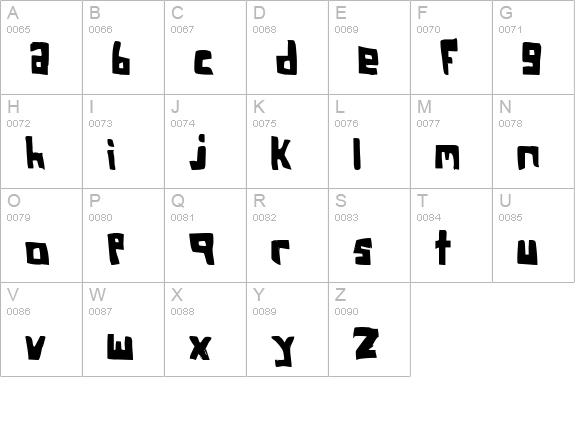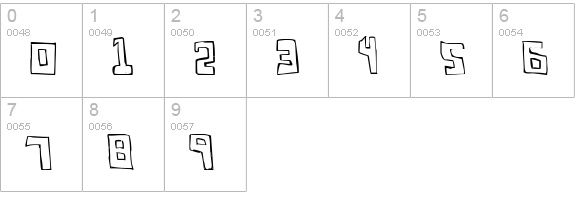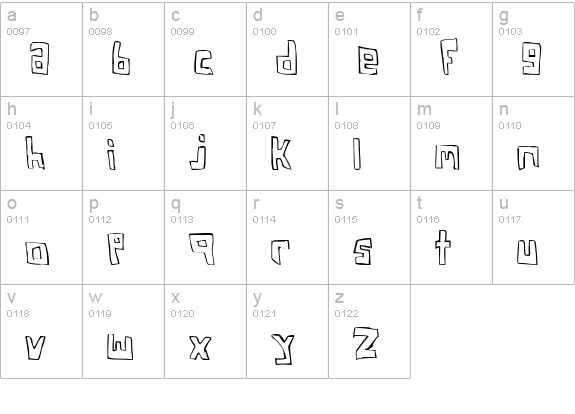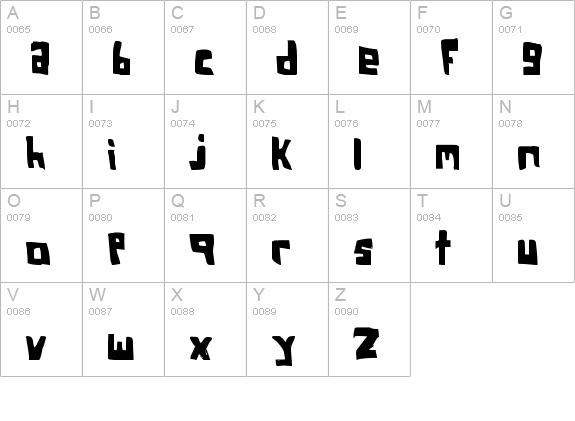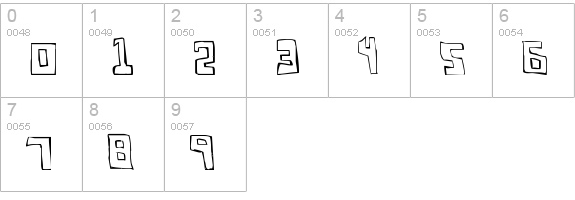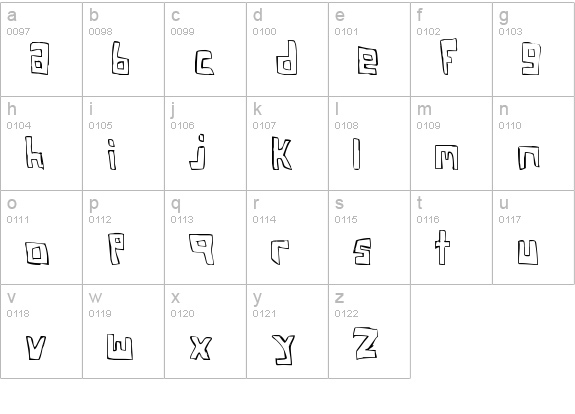
FSO square bracket Font Details
Introducing the stunning and versatile FSO square bracket font! This unique typeface brings a modern and edgy touch to any design project. With its sharp angles and bold presence, FSO square bracket font is perfect for creating eye-catching headlines, posters, logos, and more. The free font is available for download at FontsMarket.com, making it easily accessible for all your creative endeavors. Elevate your designs with the contemporary flair of FSO square bracket font today!